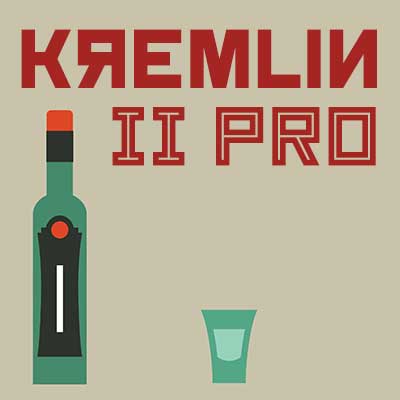
Kremlin II Pro by Vic Fieger
Most uppercase letters of this constructivist font are made to look like cyrillic letters, so by carefully interspersing those you can set your text and headlines with it and make it look russian!
To a native russian this of course looks very silly indeed, so to make amends for toying with their letters I have also included a full proper and genuine cyrillic character set.
This is the second version - also with 4 variants.